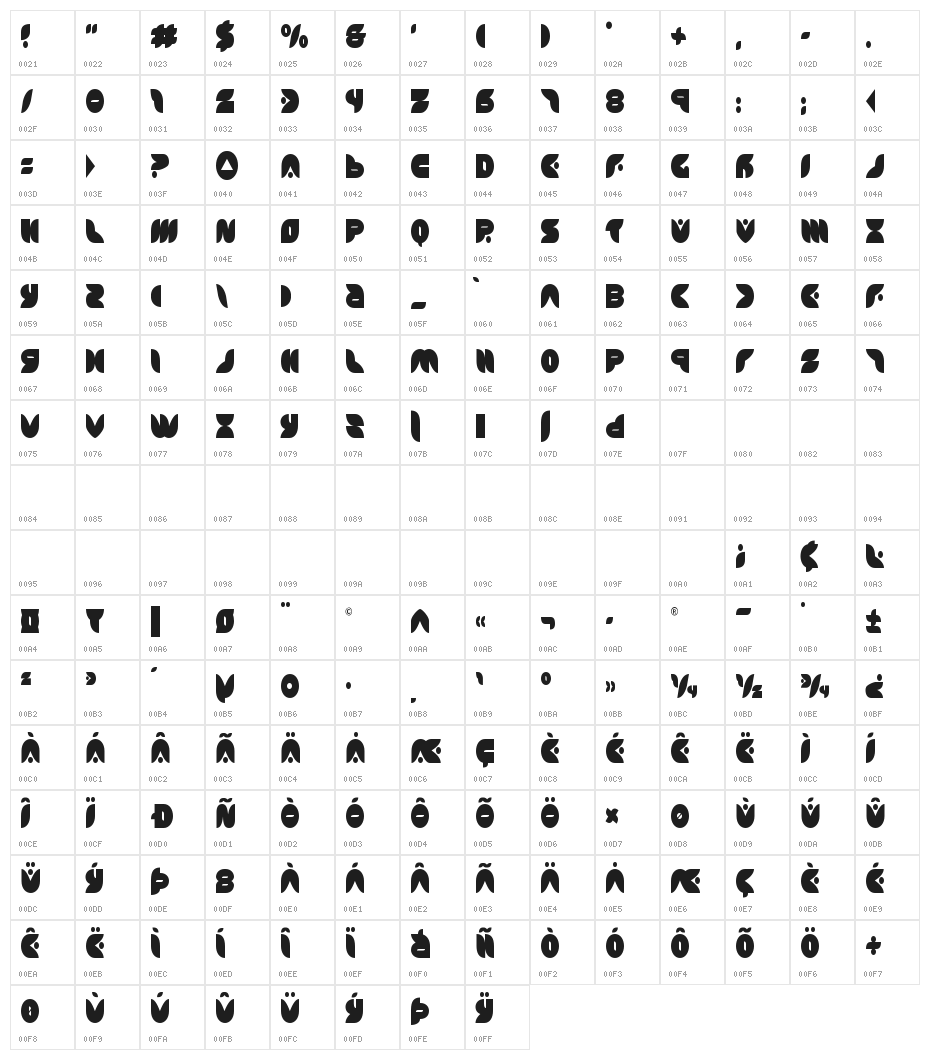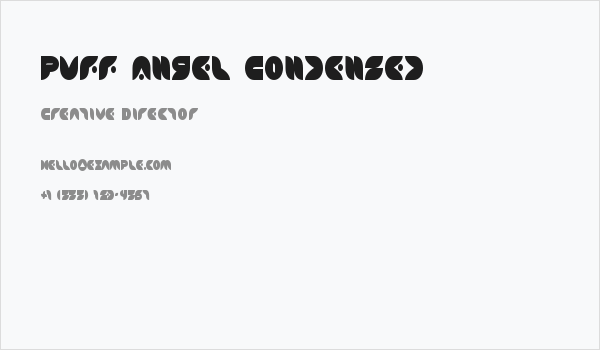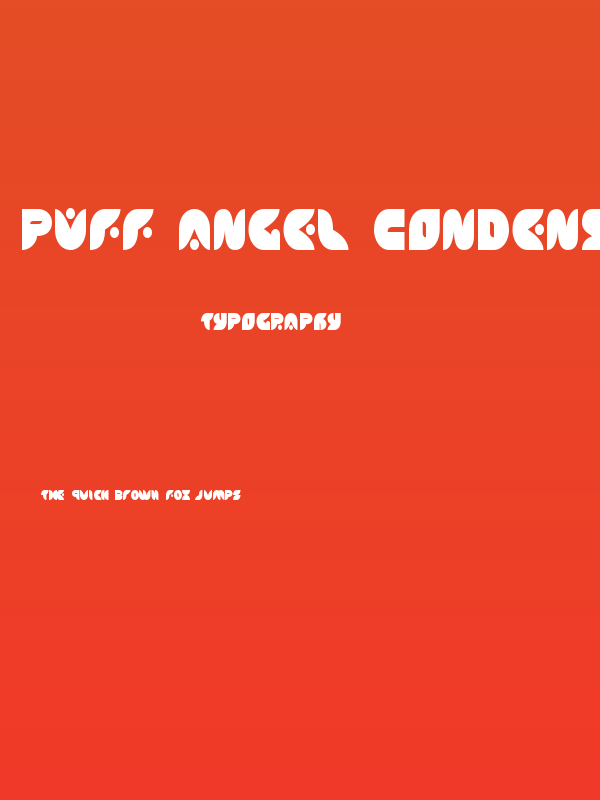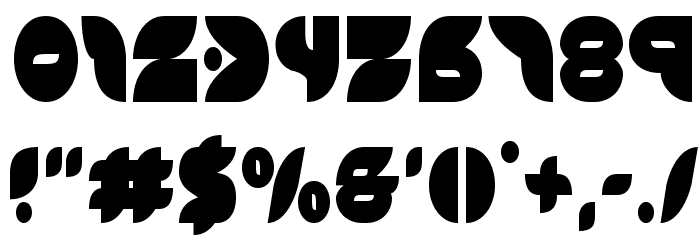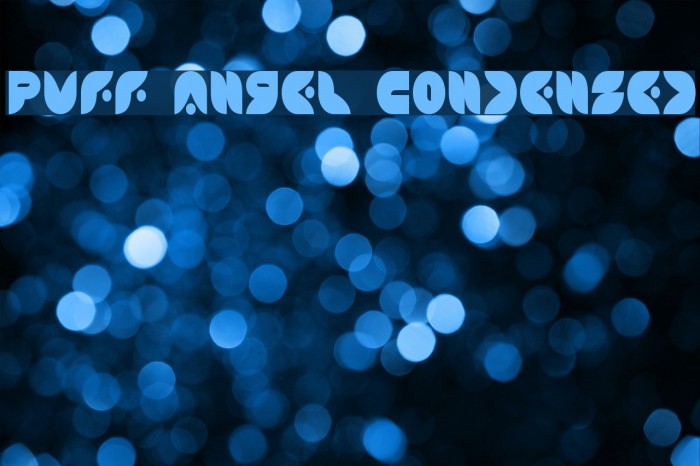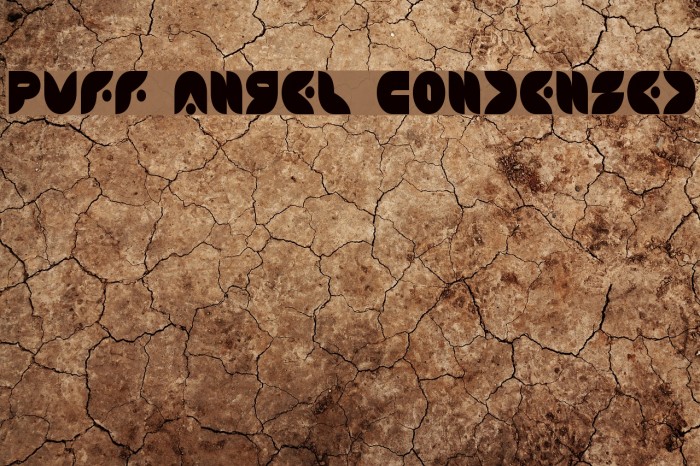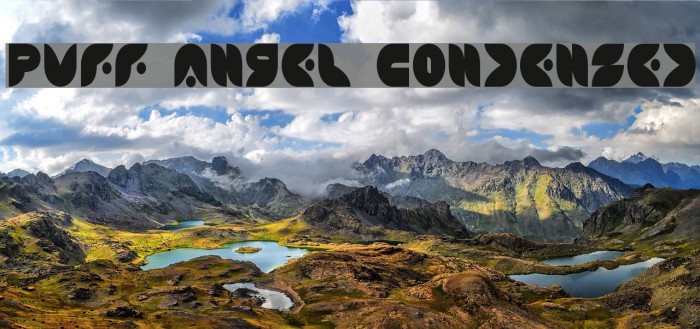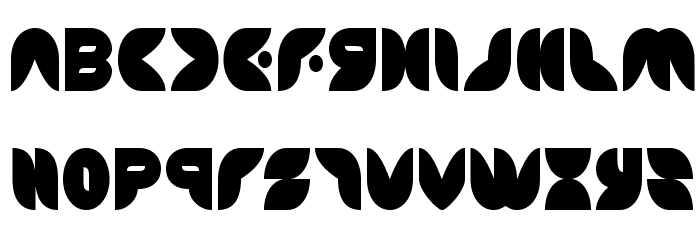
Puff Angel Condensed Font
Puff Angel Condensed Description
This font features a bold and geometric design with a distinctly modern and futuristic aesthetic. The characters are constructed with thick, rounded shapes that create a sense of solidity and impact. The use of negative space within the letters adds a unique visual interest, making each character stand out. The condensed style of the font allows for efficient use of space, making it suitable for headlines and titles where a strong visual presence is desired. The uniformity in stroke thickness across all characters contributes to a cohesive and harmonious appearance.
| Proposed Projects | Ideal for branding, posters, album covers, and any design project requiring a strong, modern aesthetic. |